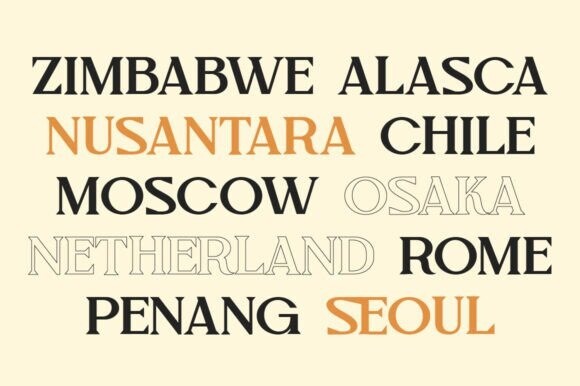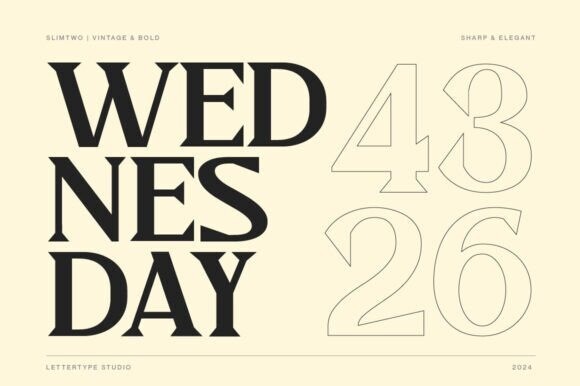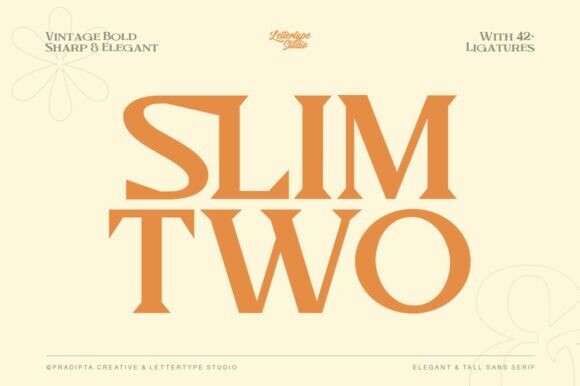
Slimtwo Font
SlimTwo Font is a vintage bold, sharp, & elegant serif font that is perfect for designers seeking to create timeless and sophisticated designs. Inspired by classic typography, these serif fonts exude a bold presence with sharp, clean lines and elegant curves.
Slim Two offers multiple styles for elevating digital and print creations with a unique modern and vintage flair. They are ideal for branding, packaging, editorial layouts, logos, and more.